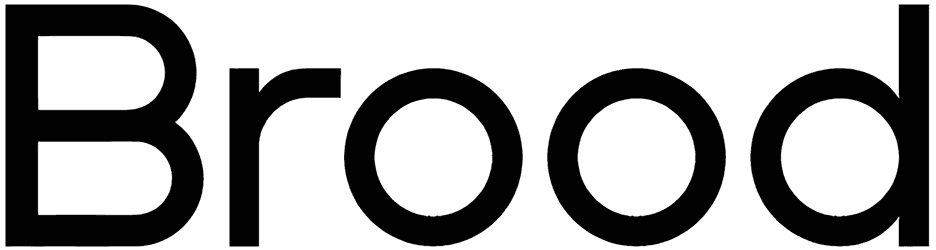
Brood Font
Designed byHuman Design
Brood is a minimal and modern font, and it is located in sans-serif fonts. Clearly, its name illustrates the purpose this font is designed. It is perfect for deep movements and changes.
Due to its formal and classic formats, it can be practical for commercial or industrial texts. Moreover, it is used for printed materials impressively, like books, magazines, and formal letters. Remember, numbers are not accessible.